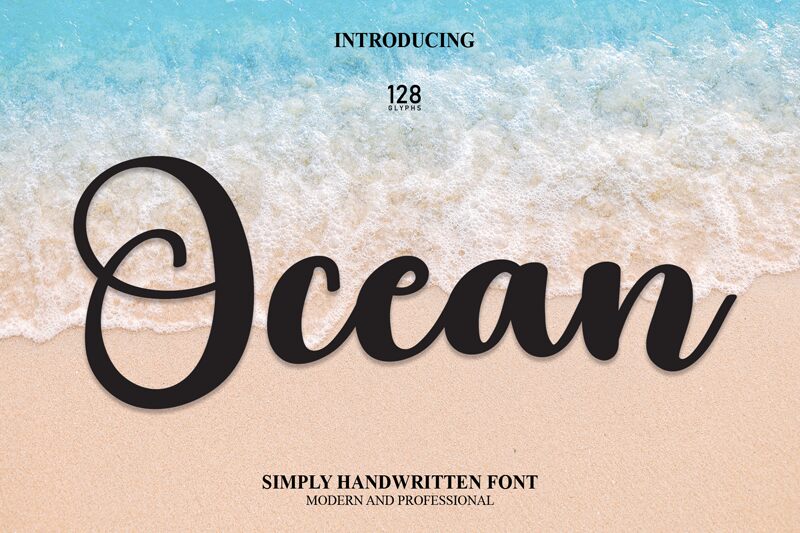
Ocean
Ocean, a mesmerizing calligraphy font created by Scratchones, adds an elegant touch to any project. Its semi-bold weight allows the letters to flow gracefully, captivating the eye with their delicate curves and strokes.
Perfect for wedding invitations, luxurious branding materials, and sophisticated signage, Ocean effortlessly brings a touch of romance and sophistication to your design. With its graceful lines and timeless appeal, this calligraphy font is sure to make a lasting impression in any creative endeavor.